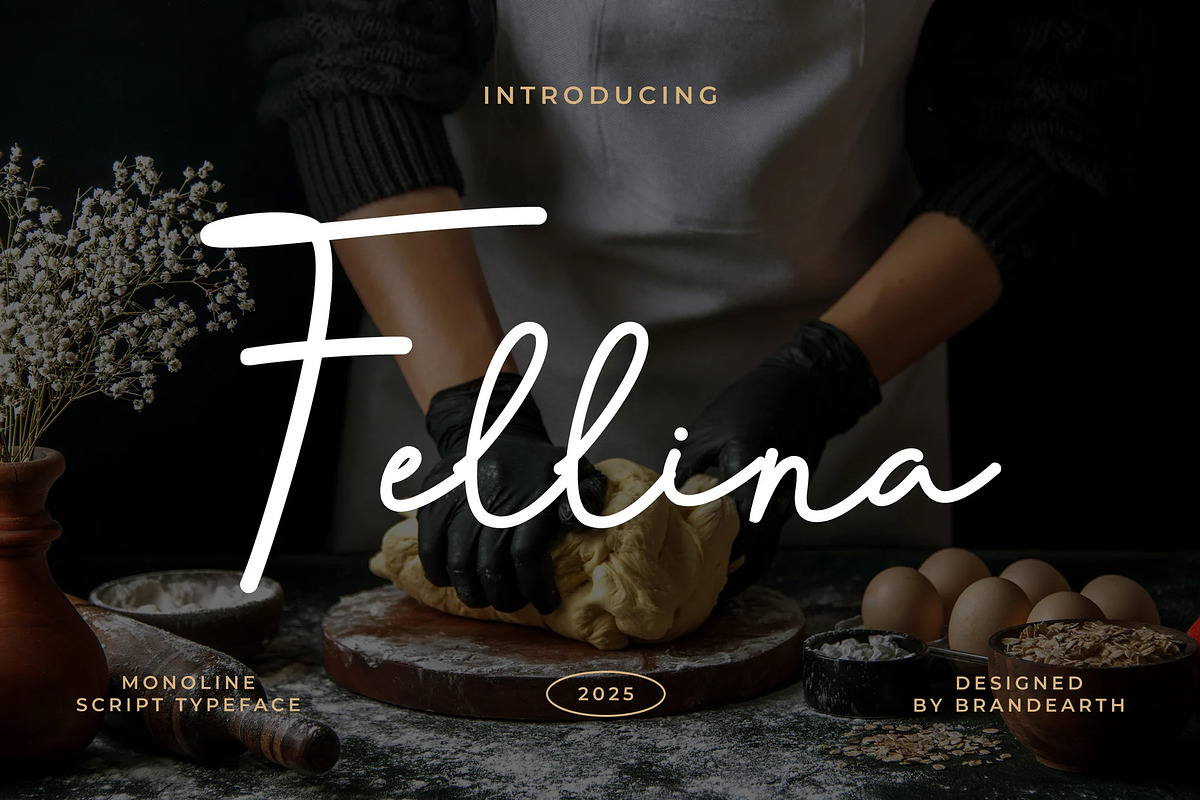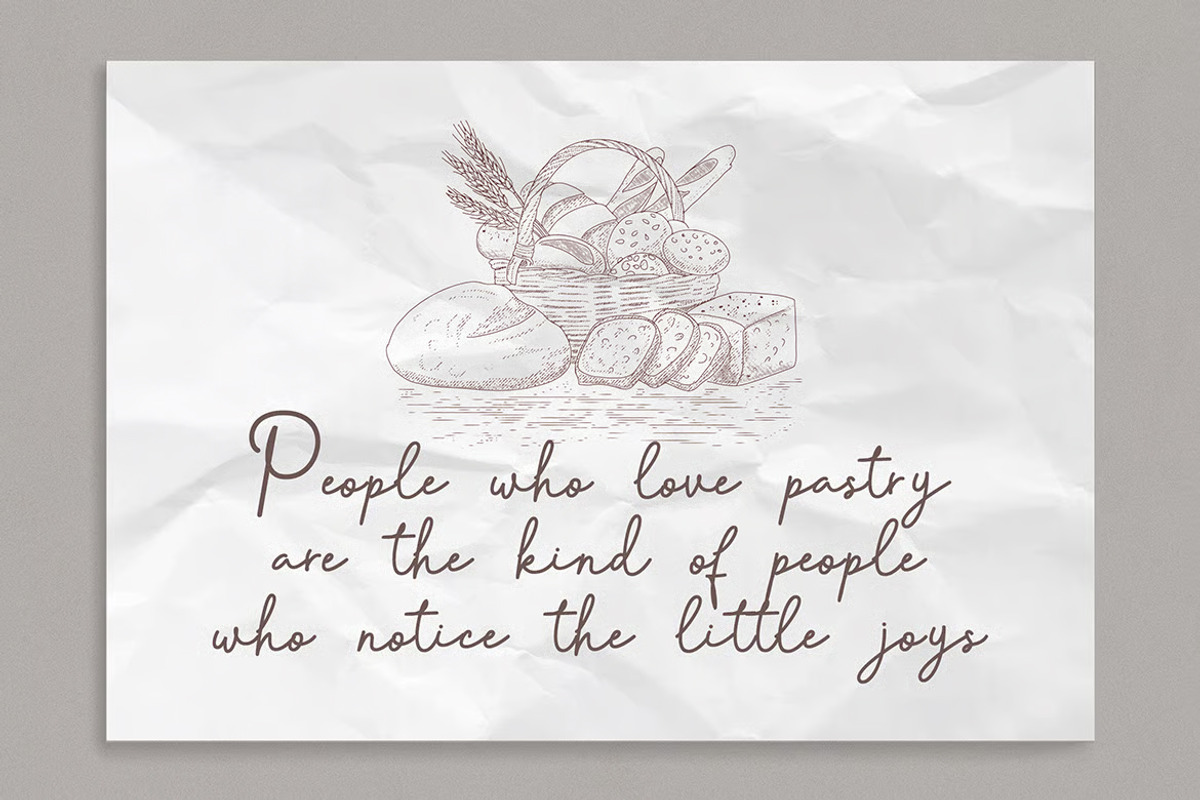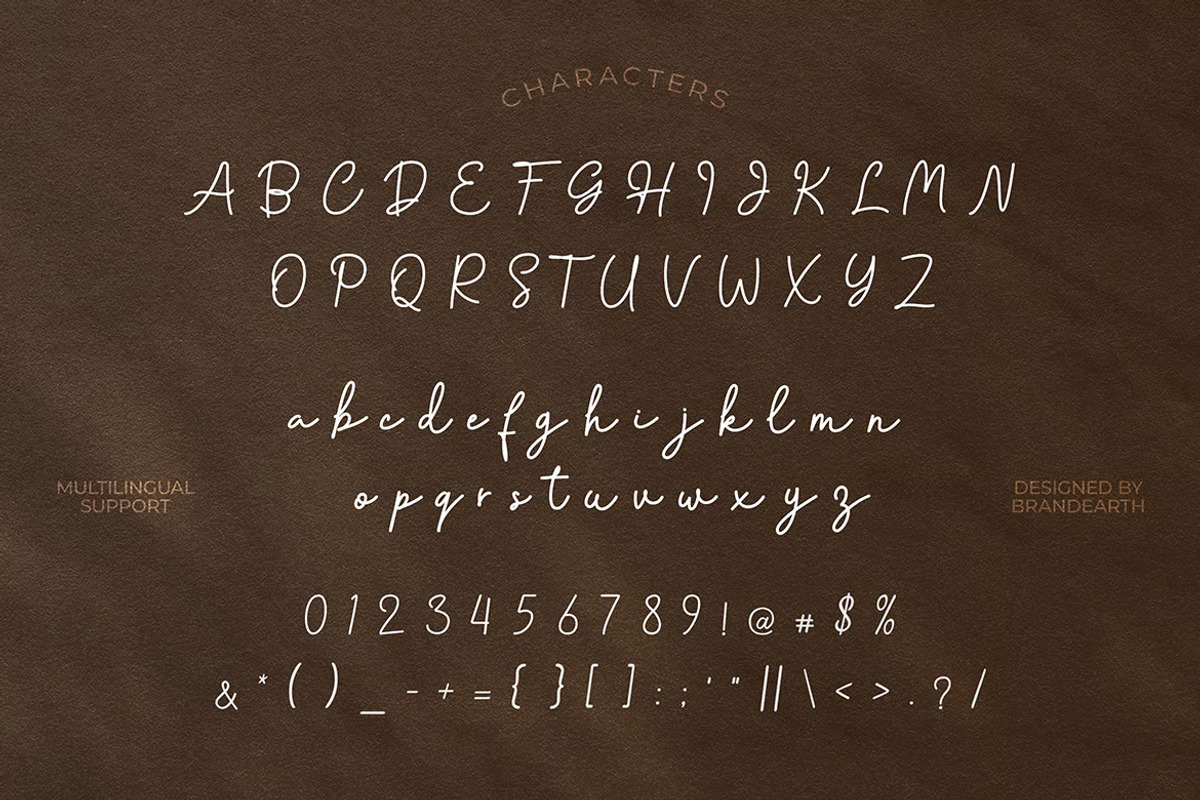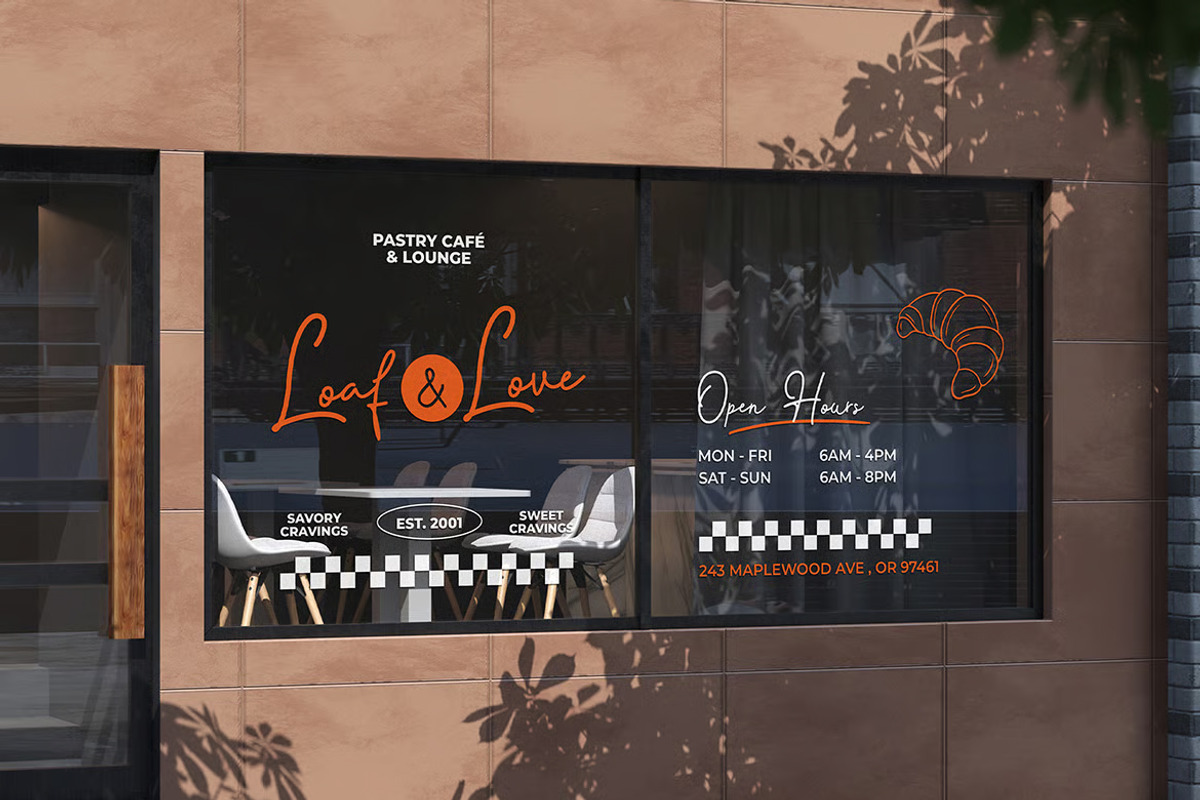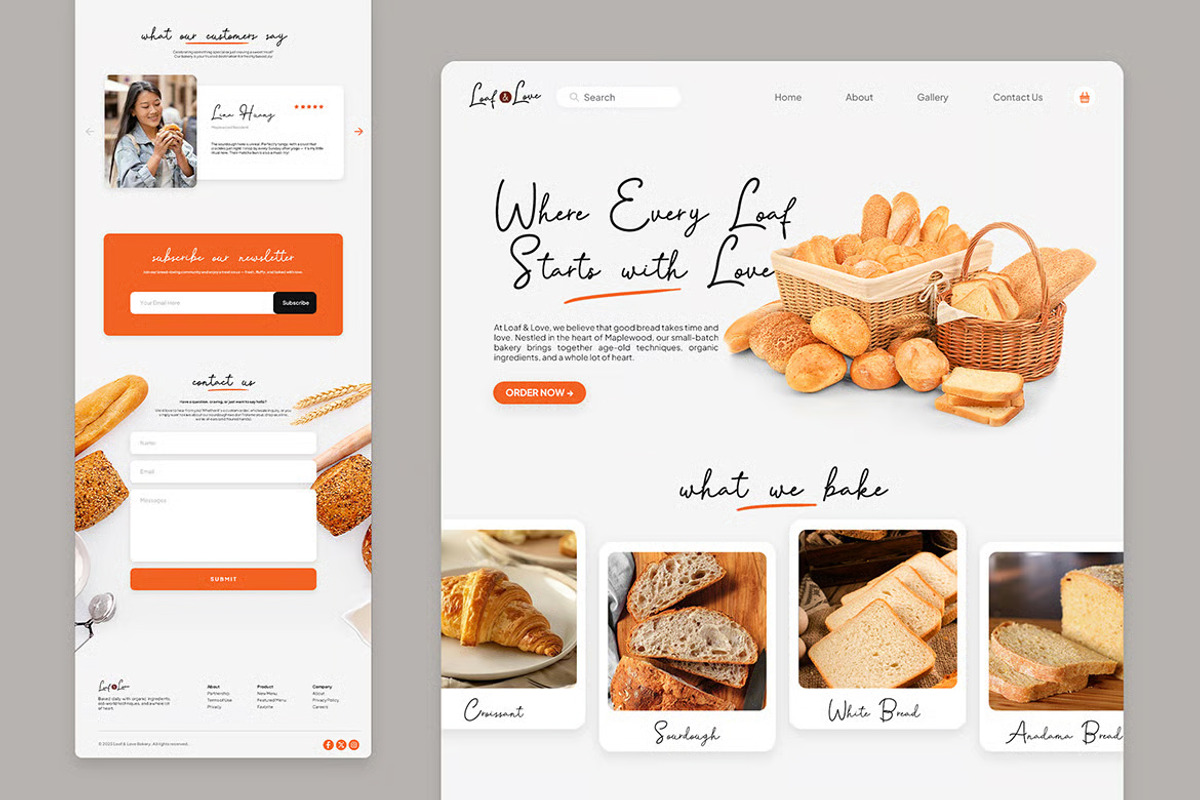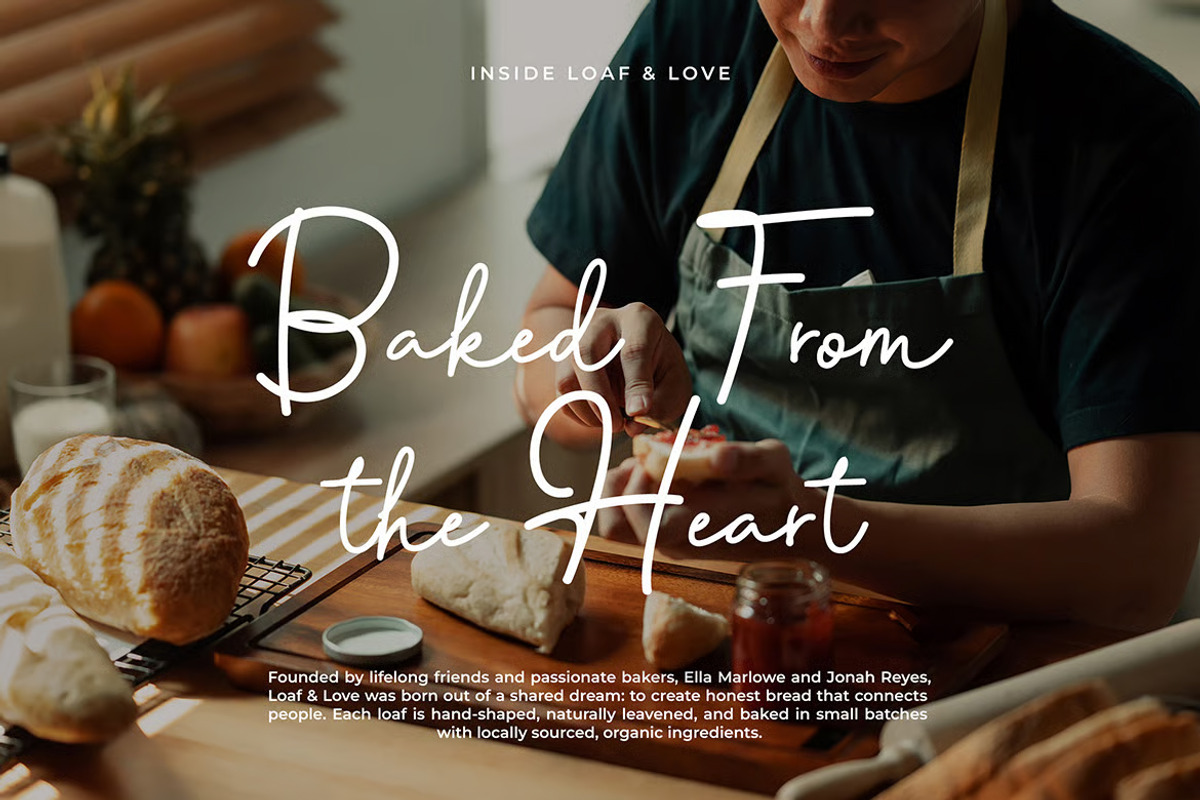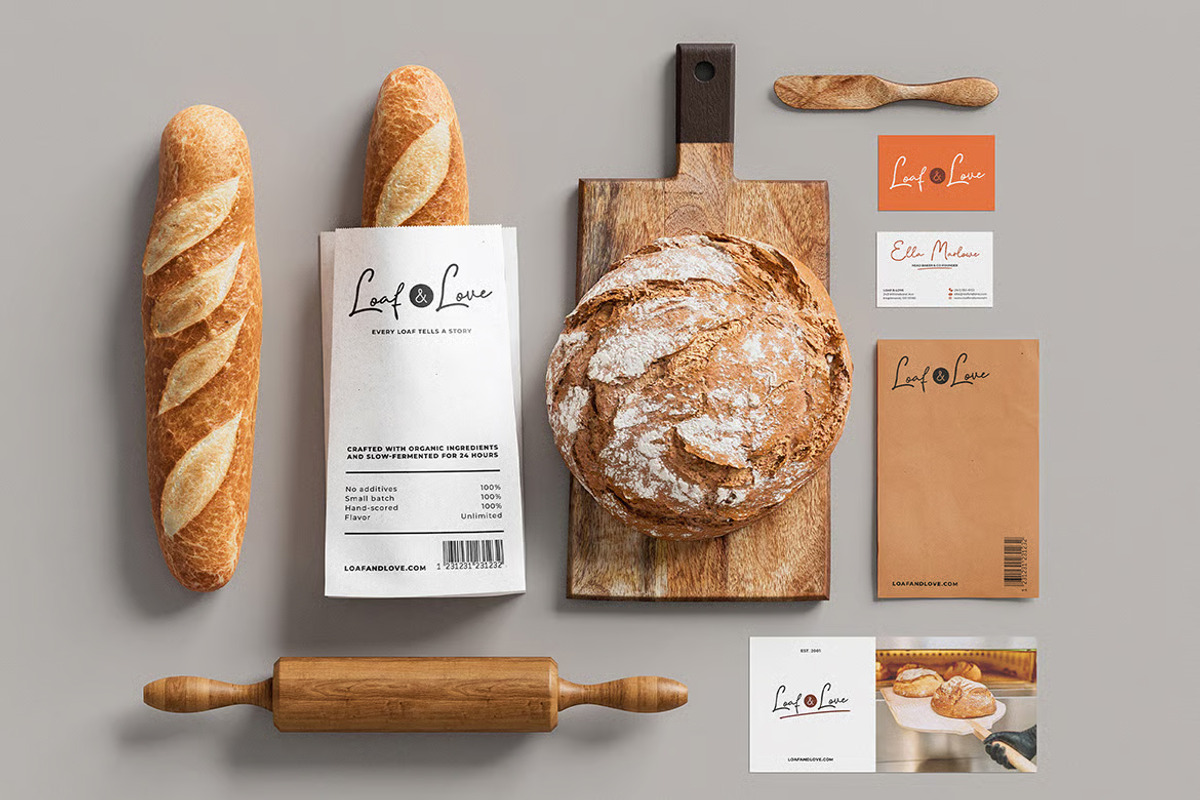
Fellina - Monoline Script Font
Fellina is a sophisticated handwritten script font that captures the warmth of human touch with every stroke. Designed to evoke a sense of authenticity and charm, it blends gracefully into cozy and emotional branding contexts. Its energy is delicate, welcoming, and artisan-inspired—perfect for those looking to elevate their brand with a handcrafted yet refined visual identity.
The letterforms in Fellina are carefully crafted with soft, looping curves, stylish ligatures, and a flowing rhythm that gives the typeface a natural and effortless appearance. It features a calligraphic elegance that is perfect for Instagram quotes, lifestyle branding, artisanal product packaging, wedding stationery, and bakery or café menus.
With its rounded, fluid forms and graceful transitions, Fellina bridges the gap between luxury and handmade. It provides a touch of sophistication while remaining approachable, making it ideal for fashion lookbooks, boutique logos, heartfelt campaigns, and food-centric businesses.
Main Features
Ligatures & Alternate
Numeral & Punctuations
Suitable For: branding, packaging, logos, Instagram posts, wedding invitations, product labels, café menus, lifestyle blogs, fashion lookbooks, bakery signage, social media graphics, boutique tags, stationery design, heartfelt campaigns, and artisan marketing.